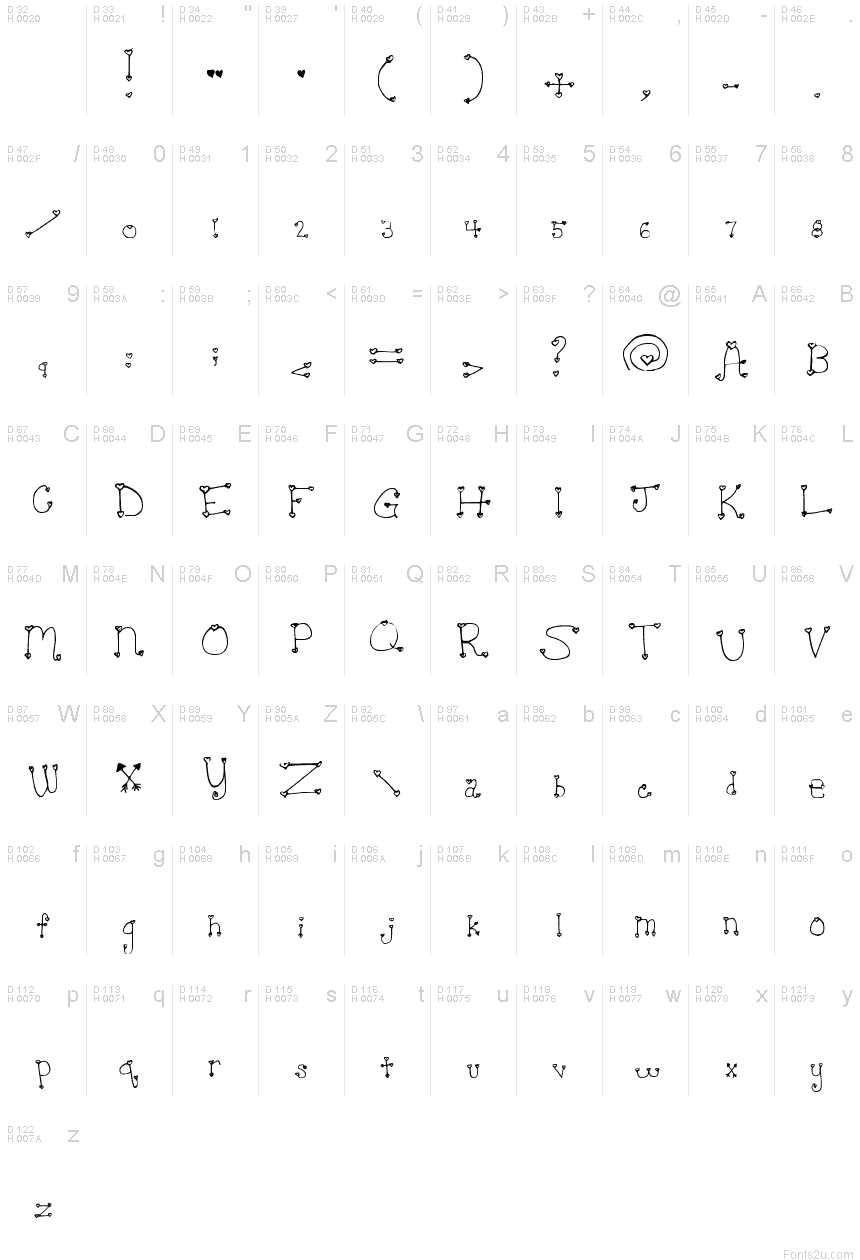
Heartache Teen Crush
Heartache Teen Crush font by Jennifer Heinicke is a free cartoon display typeface that looks like it was doodled in the margins of a spiral notebook. Tall, skinny letters end in chunky heart-shaped caps and arrow points, with wobbly, inky lines that feel spontaneous and a little dramatic-just like a teenage crush. The stroke weight is light but confident, giving words a scribbled, handwritten energy that still reads clearly at a glance.
Using Heartache Teen Crush, you can instantly give Valentine cards, teen party invites, romance zines, scrapbook titles, stickers, and social posts a fun, crush-worthy vibe. This free font shines on short phrases and big headlines where the hearts and arrows can really breathe. Pair it with a clean handwritten or simple sans serif for body copy, and let Heartache Teen Crush handle the loud, emotional words on top.
A full alphabet with numbers and most punctuation. This font is suitable for love letters to 'N-Sync and Hanson.